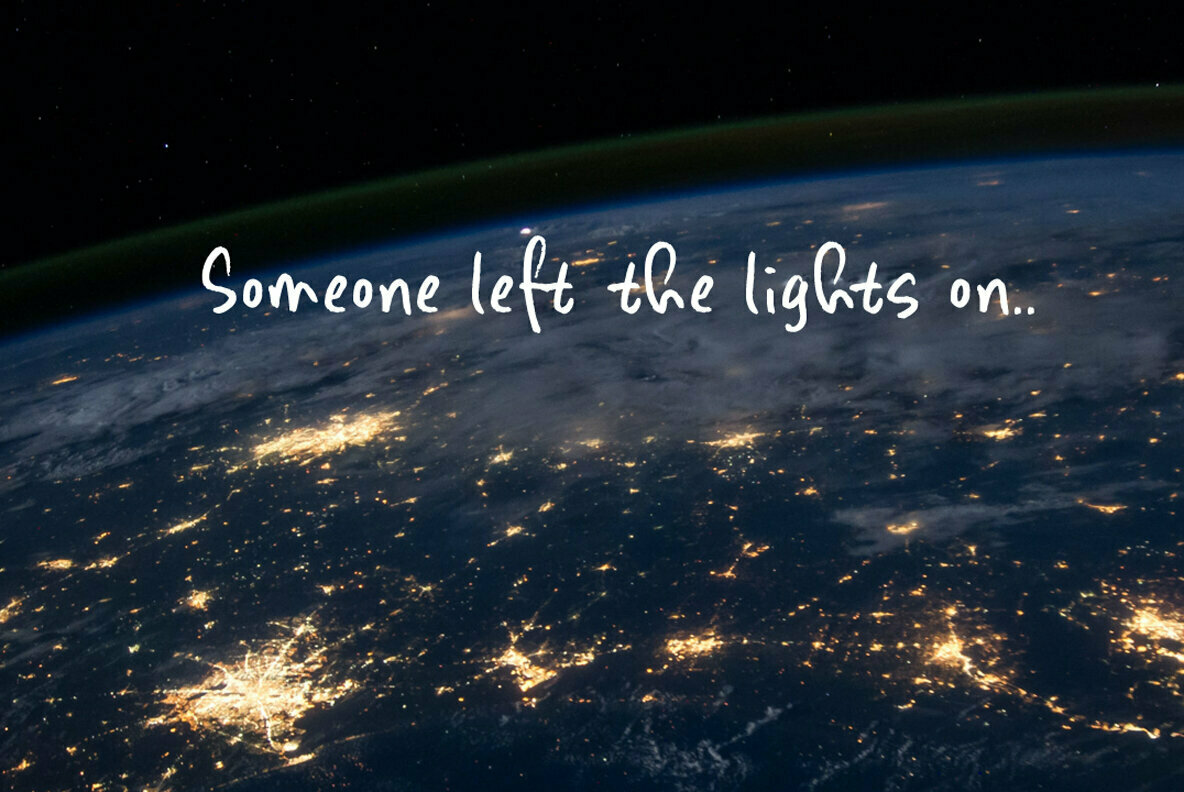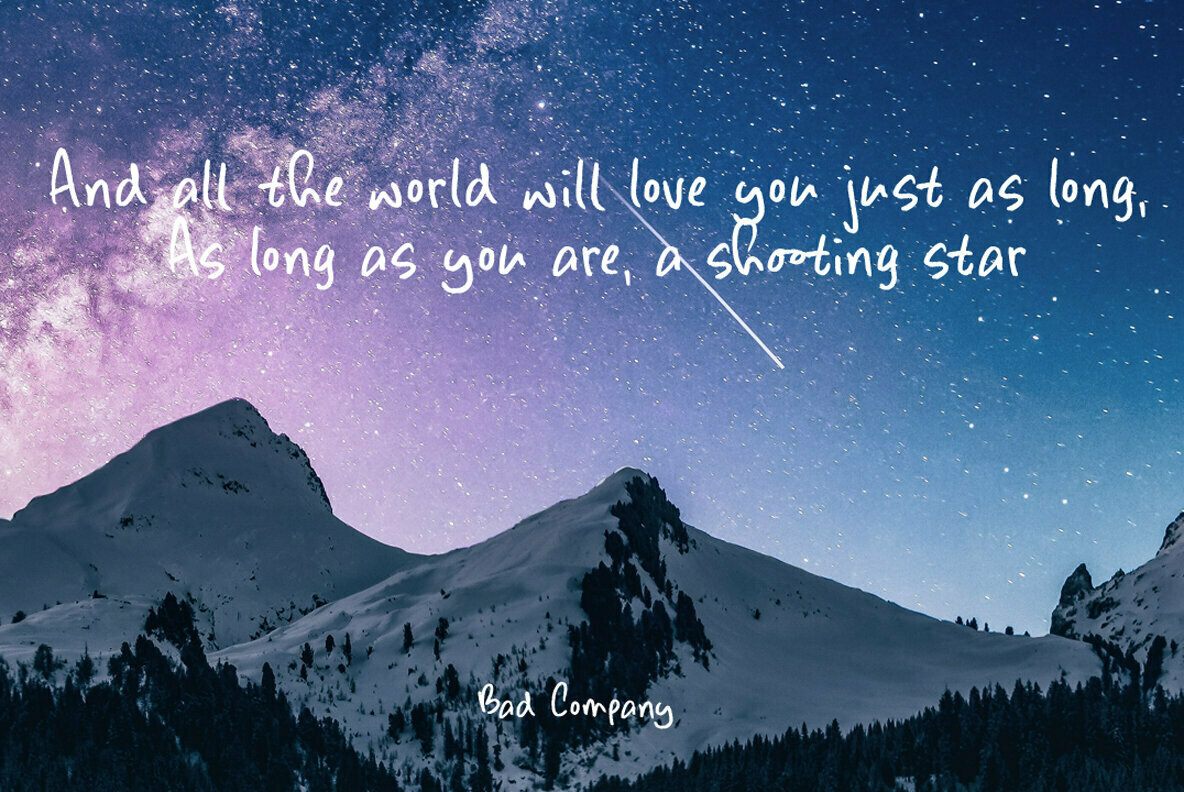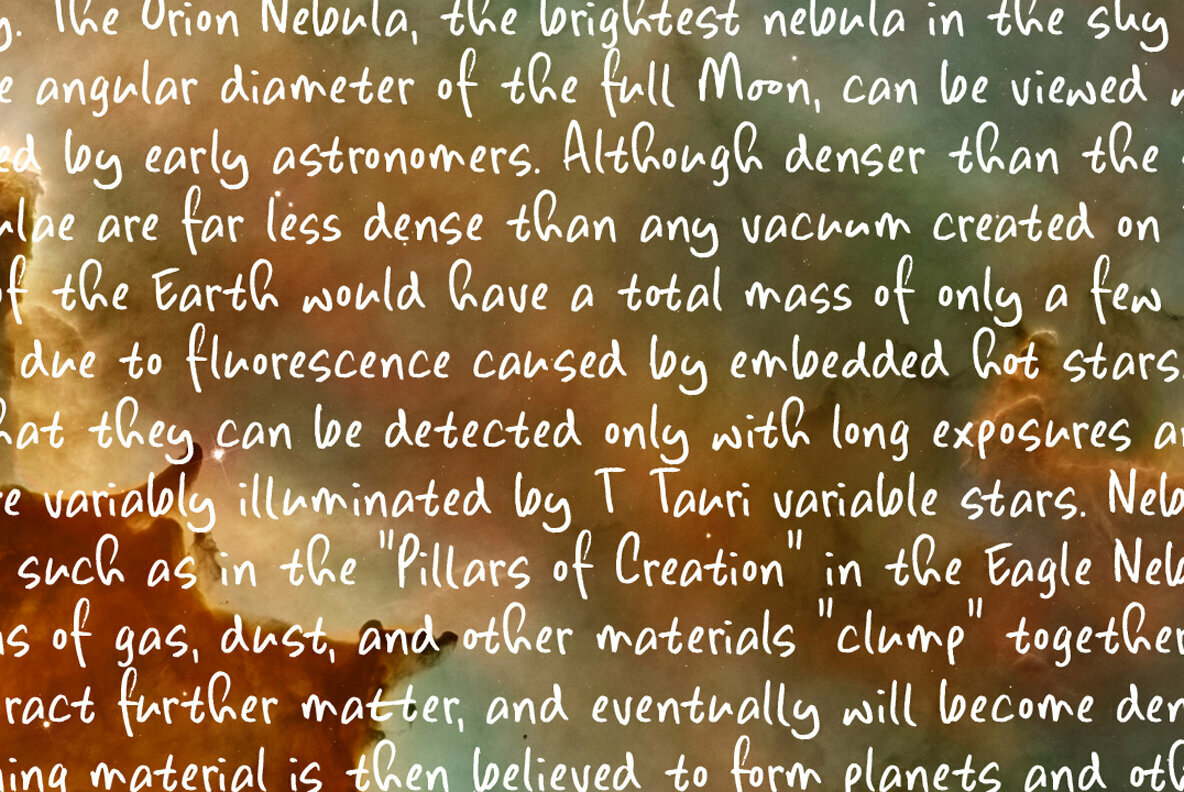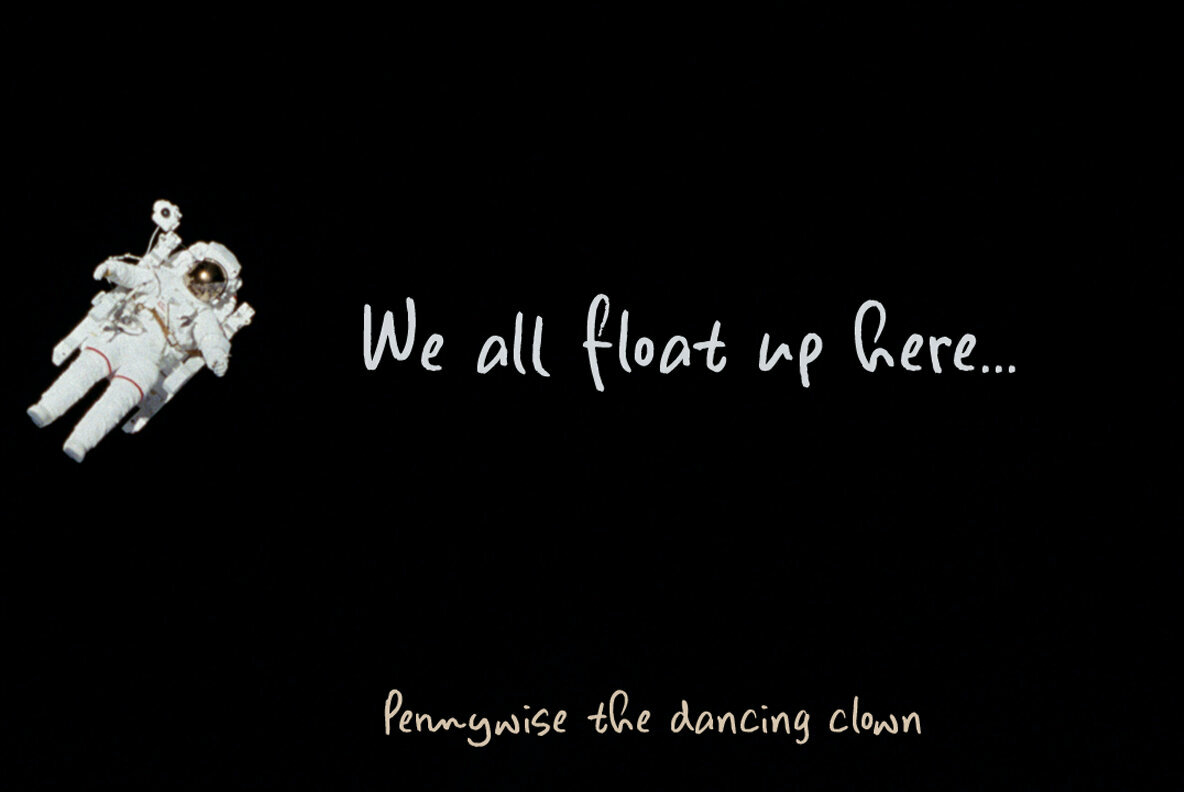
Gravitational Pull Font
Gravitational Pull Regular
Gravitational Pull Italic
My 9-year old son Sam asks a lot (a LOT!) of questions. Like: ‘what killed the dinosaurs?’ (probably an asteroid), ‘what is the distance to Pluto’ (about 7.5 billion km), ‘how big is space’ (93 billion lightyears - give or take). I am pretty sure he asked me about gravity as well.
Gravitational Pull is a messy pencil script font. It comes with a whole bunch of double-letter ligatures and some really wonky glyphs.
And no, in its virtual form, this font is not subject to the Earth’s gravitational pull.